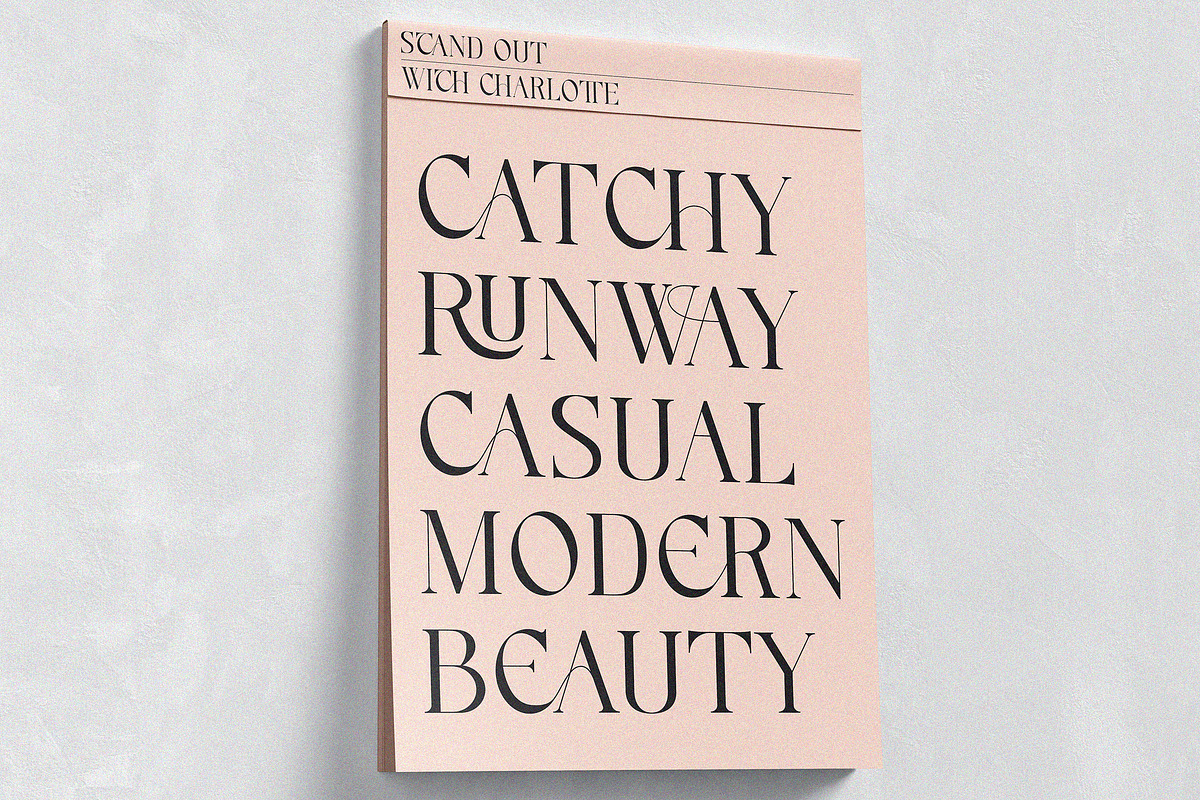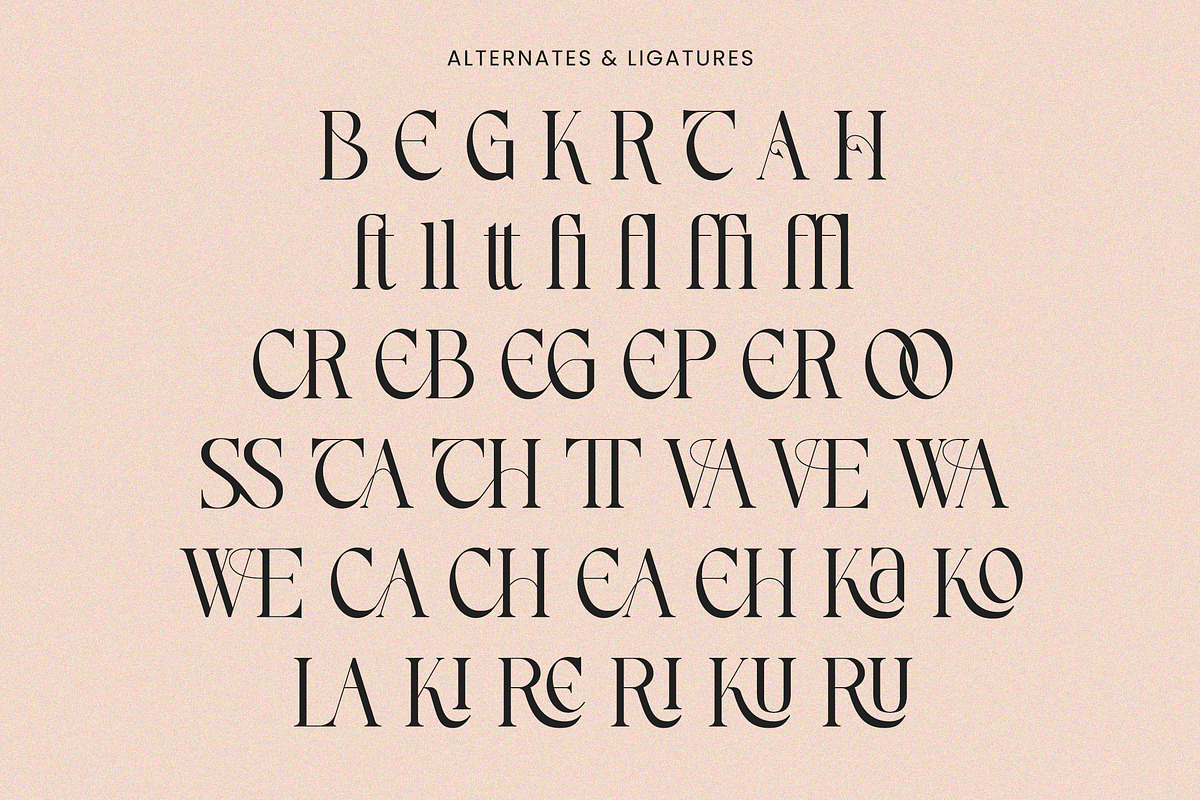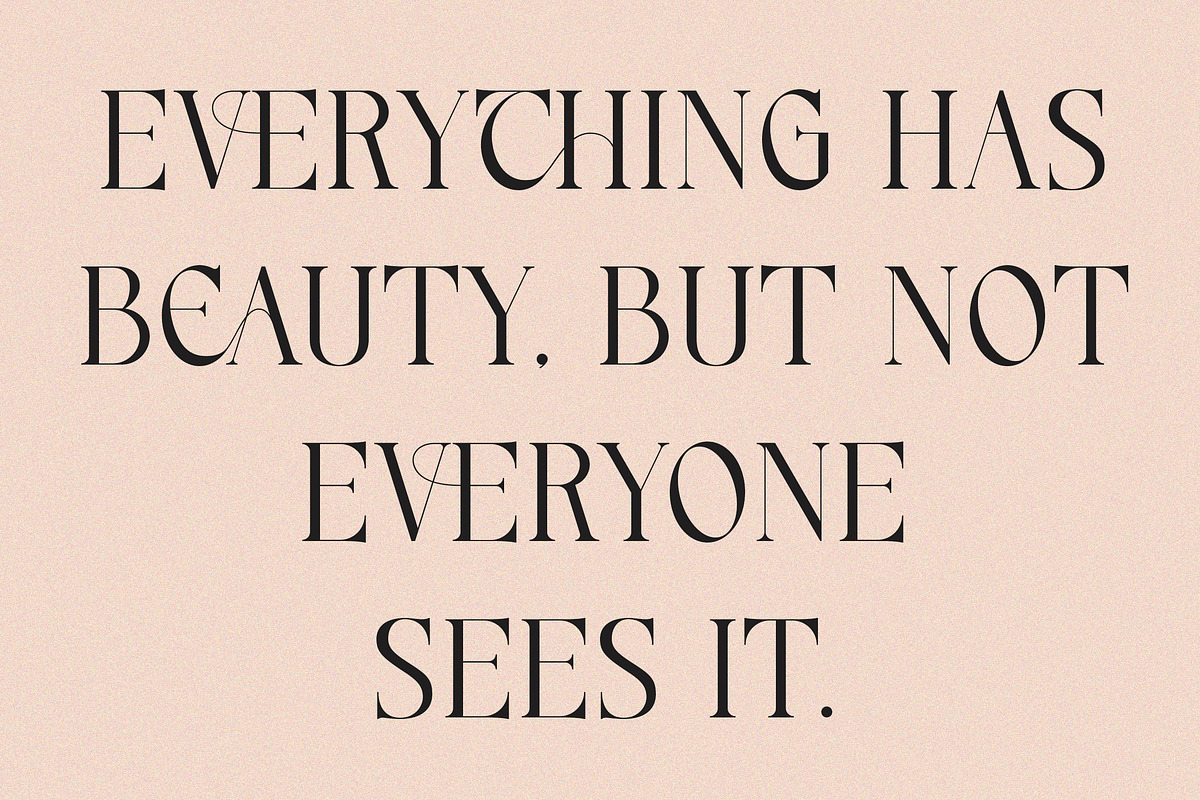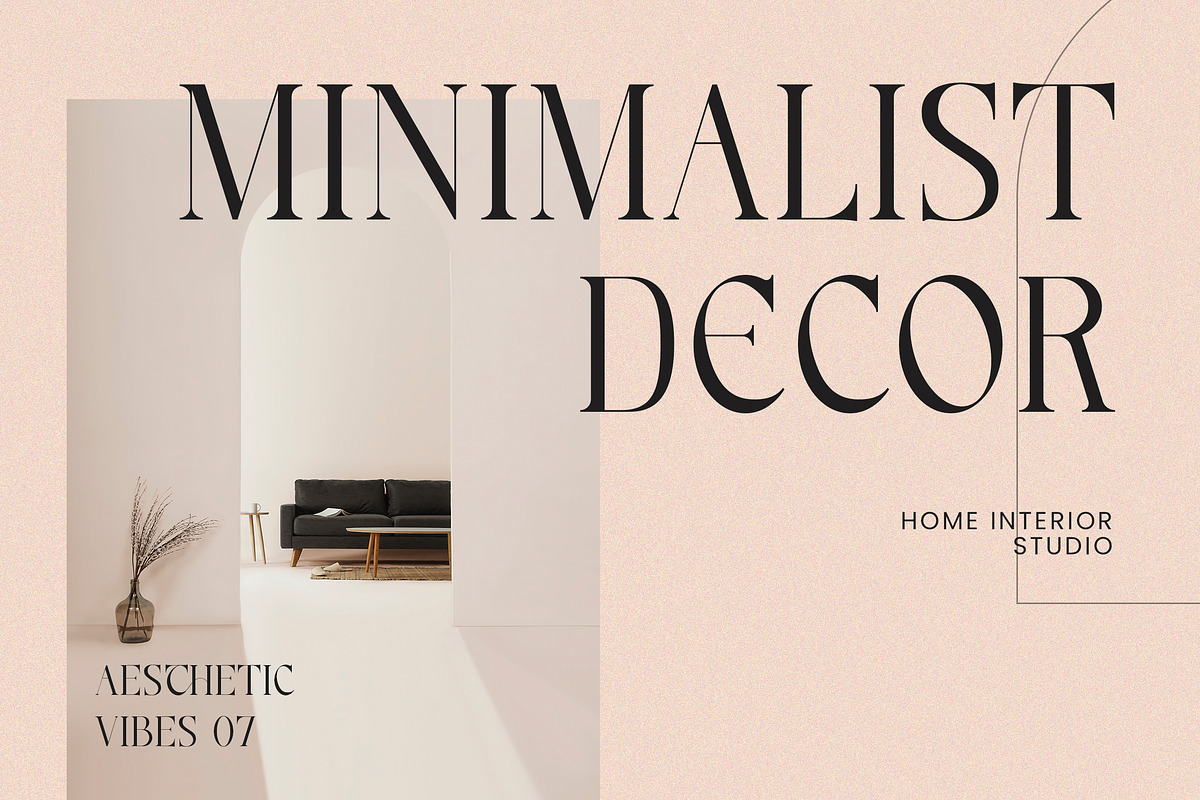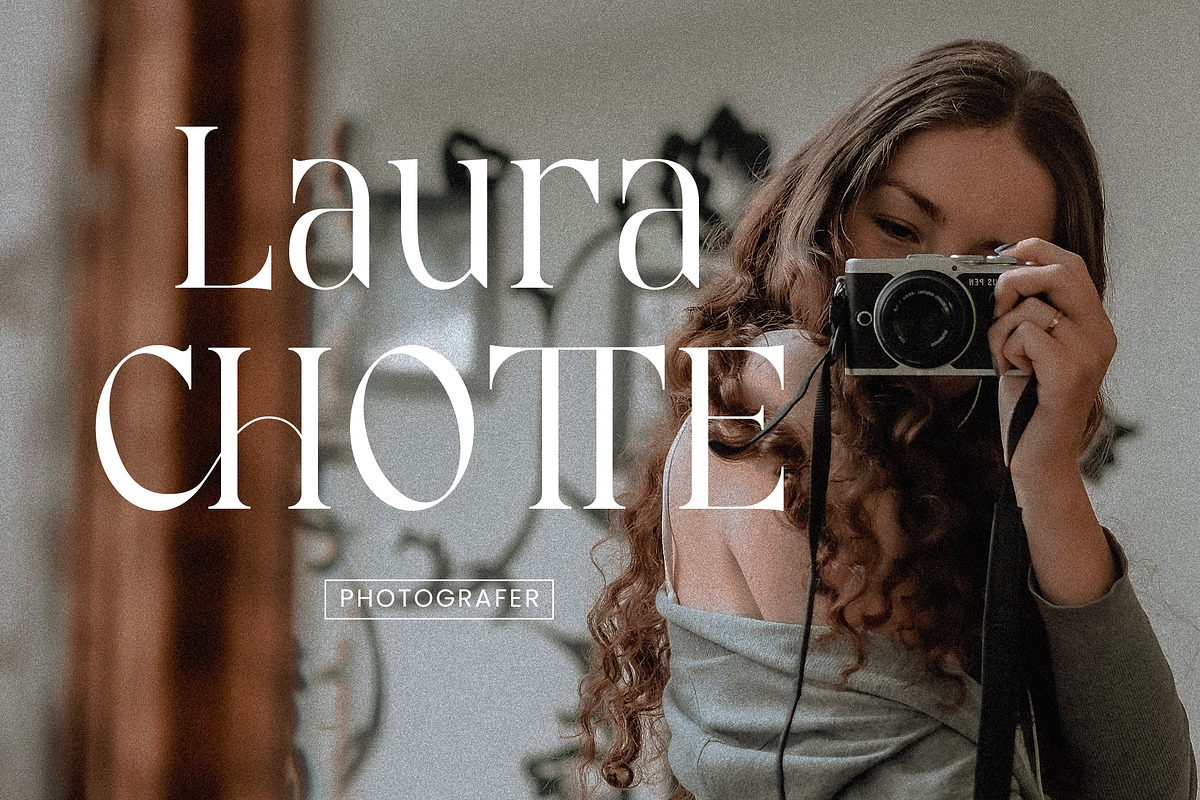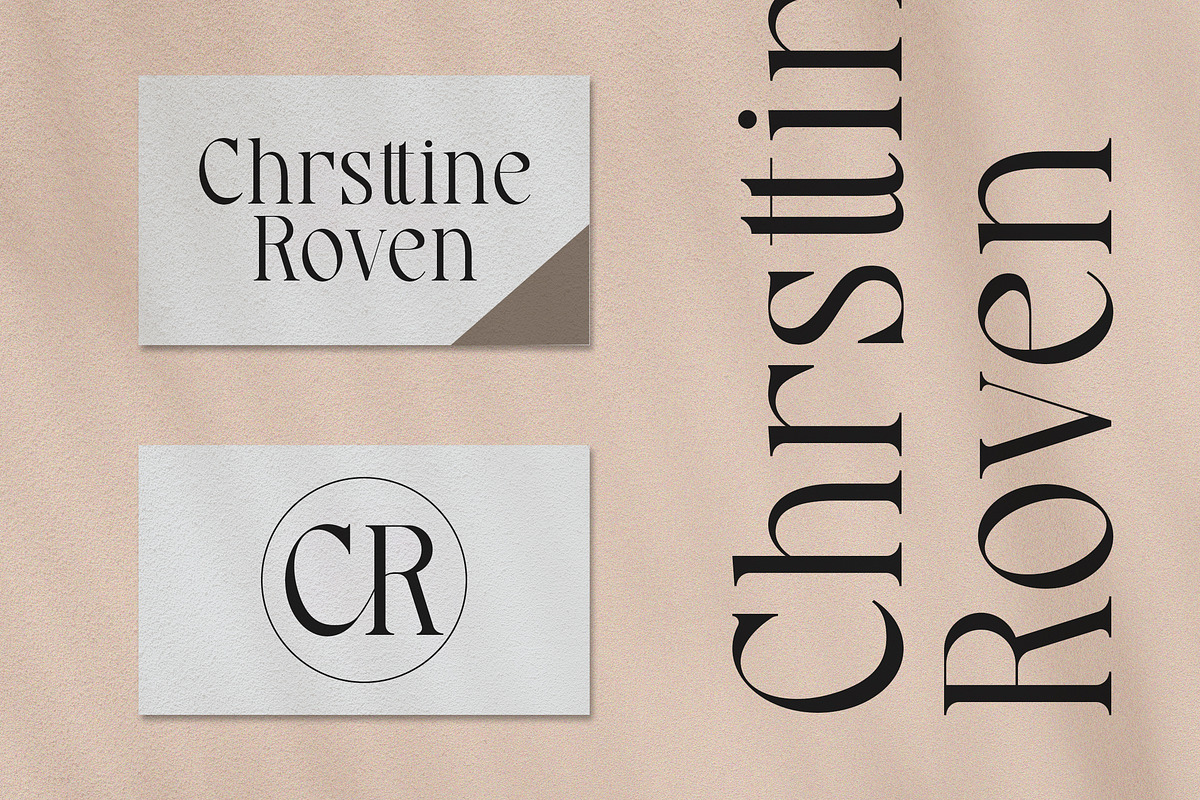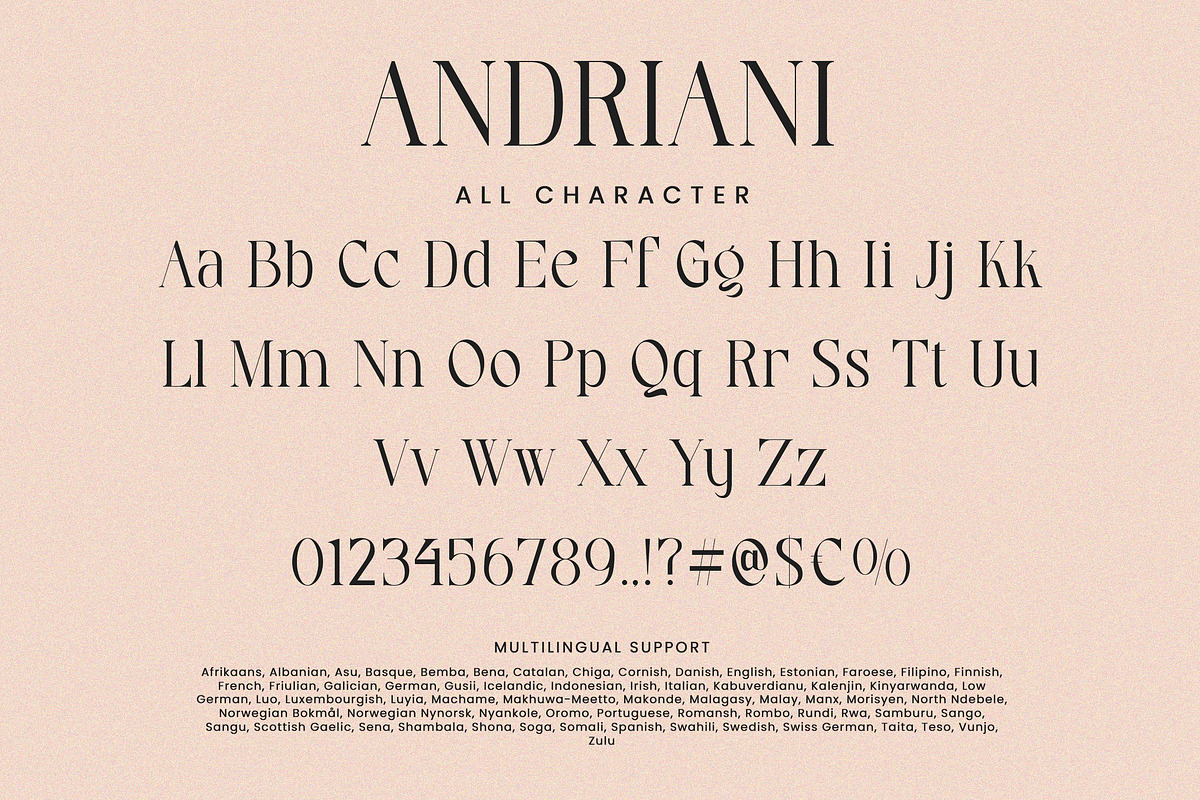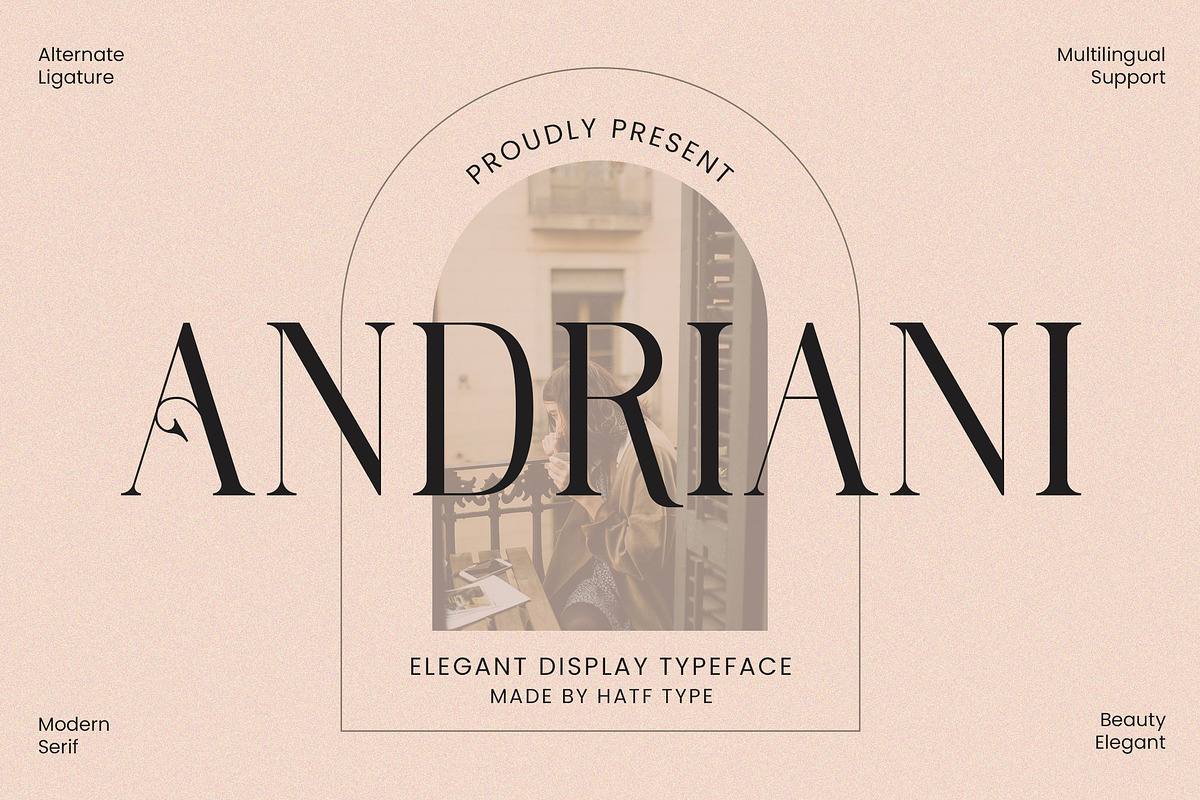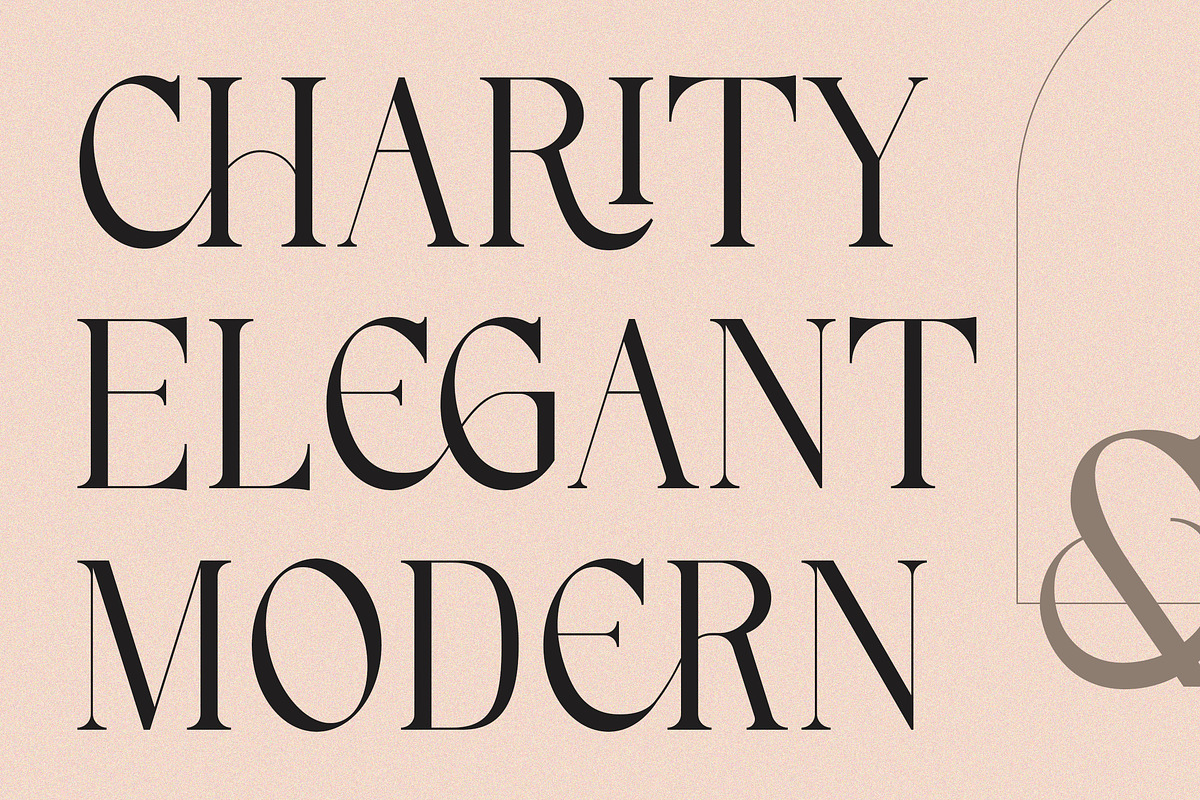
Andriani
Andriani is an elegant display typeface. It is characterized by its sleek and sophisticated appearance, making it suitable for use in headlines, headings and other prominent design elements.
The elegant display typeface exudes timeless charm with its graceful, thoughtfully crafted letterforms. Each character is imbued with a sense of sophistication, featuring subtle serifs or exquisite details that enhance the overall aesthetic. The typeface features a harmonious balance between sleek strokes and subtle ornate elements, contributing to a refined and luxurious appearance.
The design of this typeface reflects attention to detail, with curves and lines seamlessly intertwining to create a seamless flow. The letterform conveys a sense of luxury and refinement, making it an ideal choice for high-end branding, invitations and editorial designs that desire a touch of class.
Whether used in large headlines or smaller display settings, elegant display typefaces attract attention and leave a lasting impression. Its timeless appeal ensures versatility across a wide range of design applications, adding a touch of sophistication and refinement to any project.